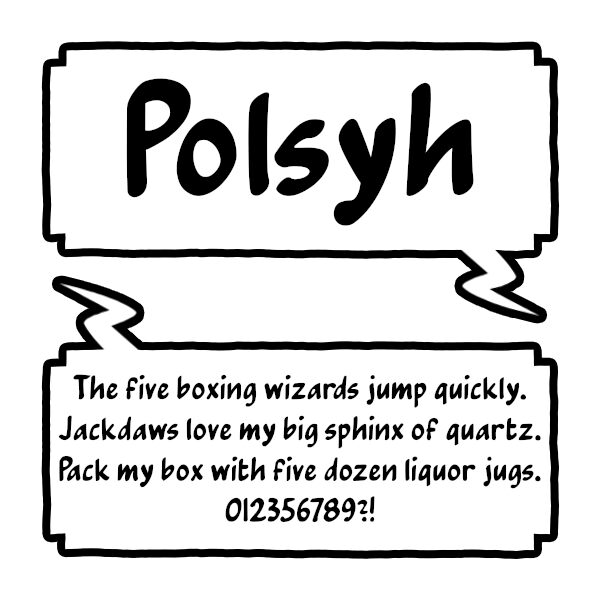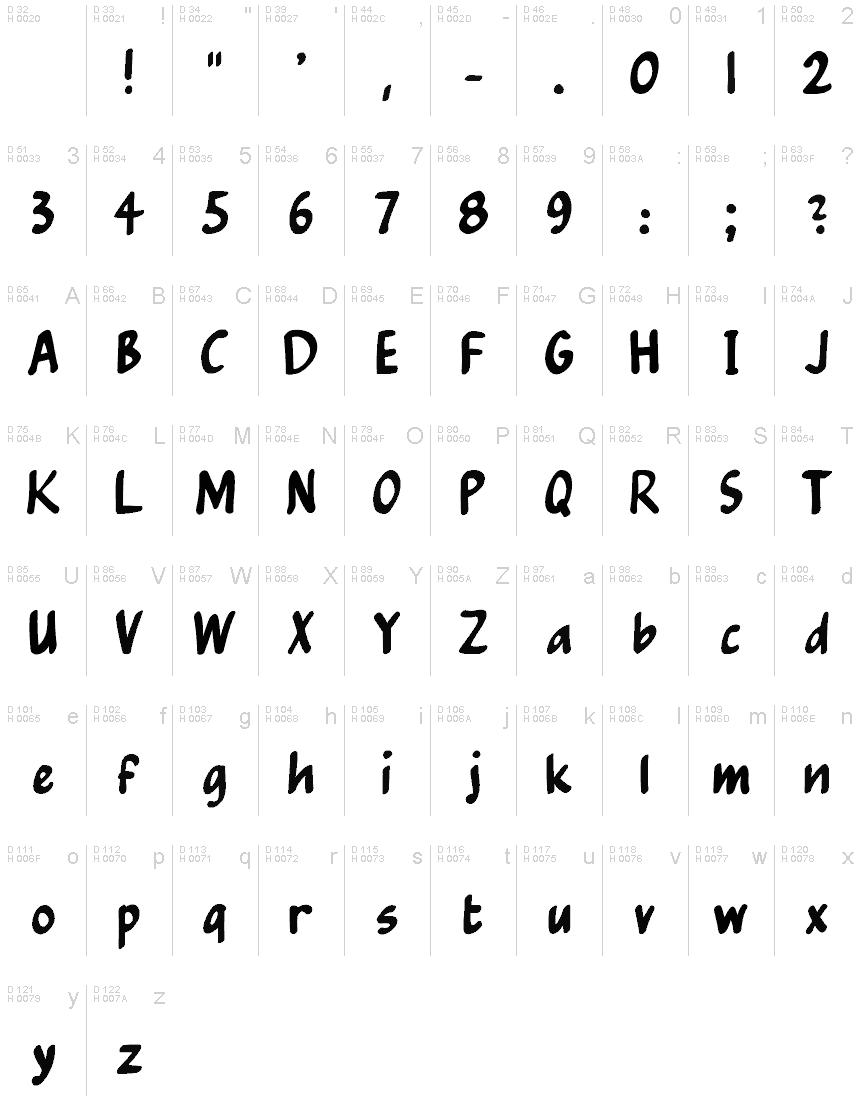
Polsyh
Polsyh is a captivating display font that exudes a lively, comic-inspired essence. Its dynamic, hand-drawn strokes and playful curves lend a sense of energy and whimsy, making it an ideal choice for eye-catching headlines, playful branding, and vibrant design projects.
The font's distinctive character shines through in its boldly rounded letterforms and whimsical flourishes, creating a visually engaging and approachable aesthetic. Polsyh's versatility allows it to shine in a variety of applications, from children's books and packaging to social media graphics and event promotions, where its spirited personality can captivate audiences and elevate the overall design aesthetic.
This font is based on the lettering used in the Tintin comic series, which was designed by Neil Hyslop. The distinctive style of this font captures the visual appeal and legibility of the original comic book lettering.
The font's distinctive character shines through in its boldly rounded letterforms and whimsical flourishes, creating a visually engaging and approachable aesthetic. Polsyh's versatility allows it to shine in a variety of applications, from children's books and packaging to social media graphics and event promotions, where its spirited personality can captivate audiences and elevate the overall design aesthetic.
This font is based on the lettering used in the Tintin comic series, which was designed by Neil Hyslop. The distinctive style of this font captures the visual appeal and legibility of the original comic book lettering.